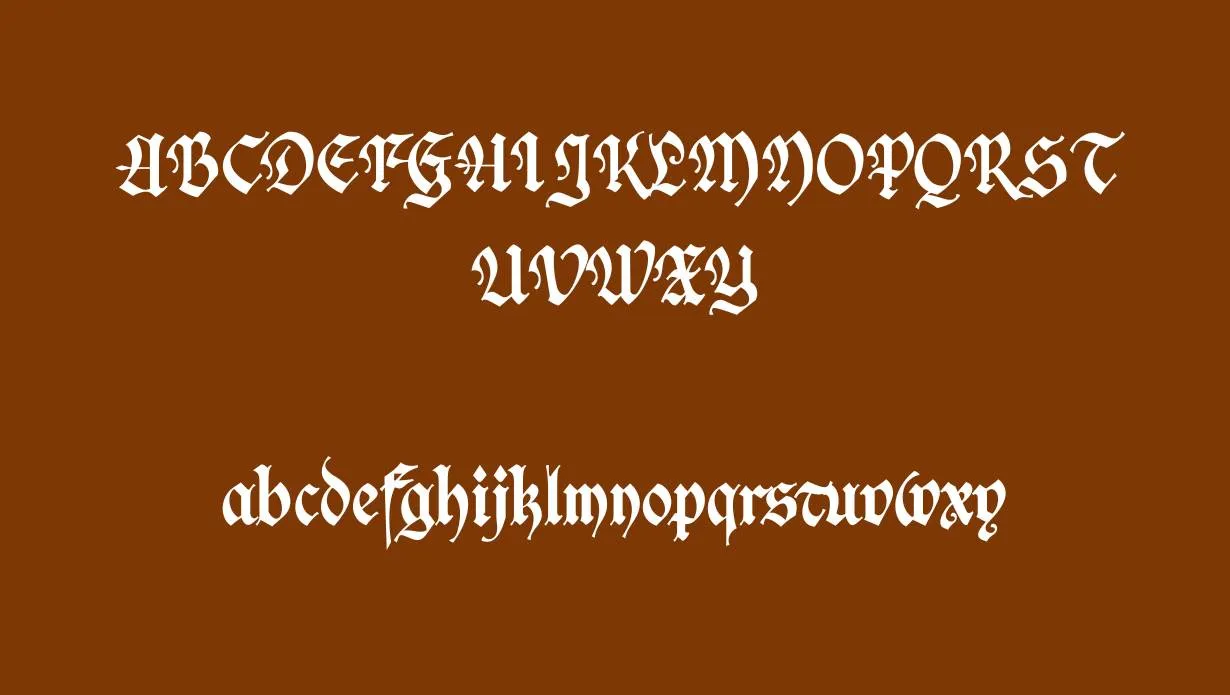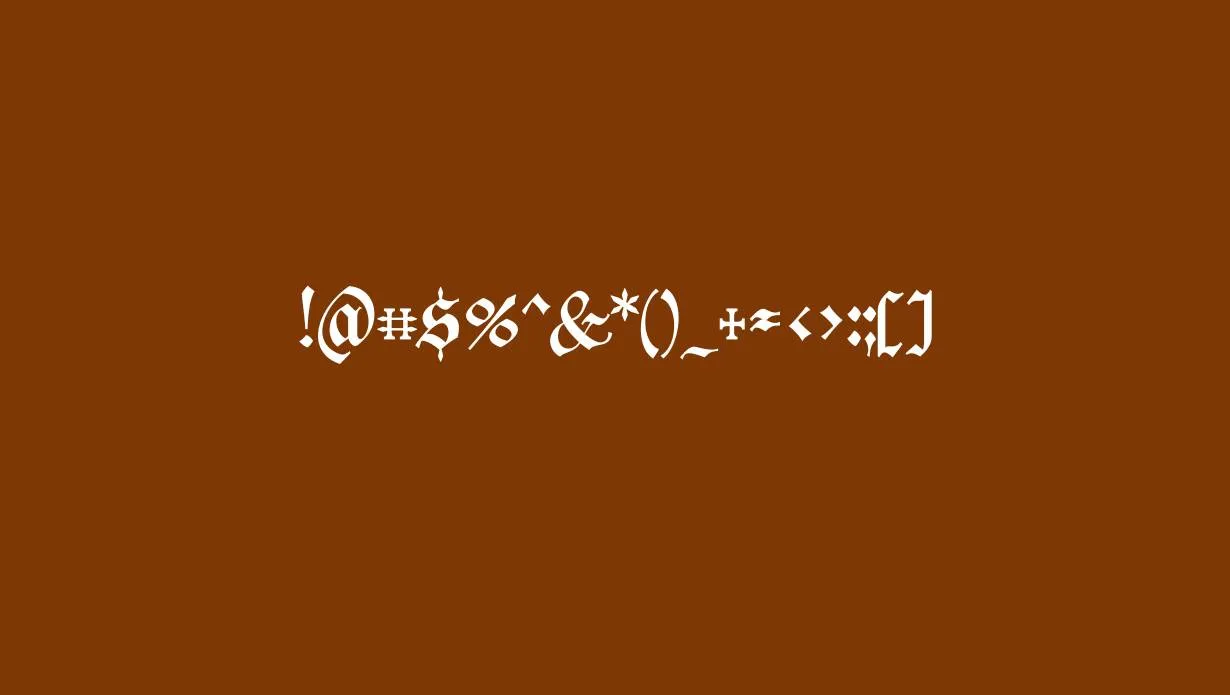
Jack Pirate Font is a rugged and adventurous typeface with a pirate flair. It evokes the spirit of seafaring journeys. Ideal for pirate-themed events, adventure book covers, and nautical designs.
| Style | Gothic |